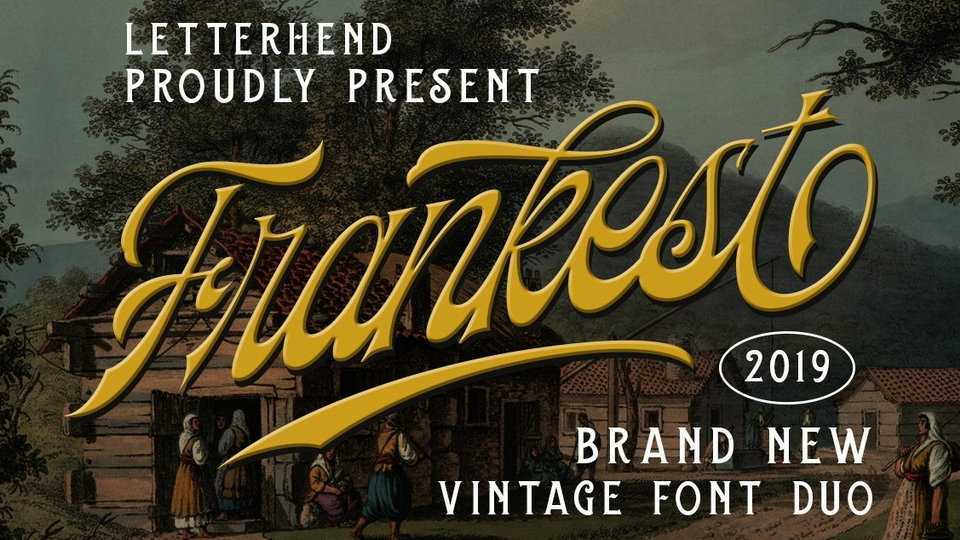
Download Frankest Script font, a decorative vintage typeface with elegant and classy look. Frankest Script is perfect for logotype, headline, apparel, poster with vintage feels.